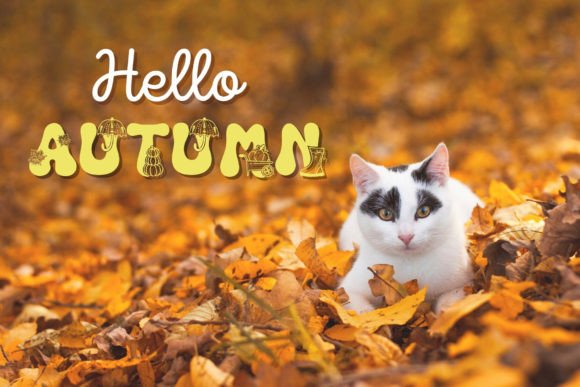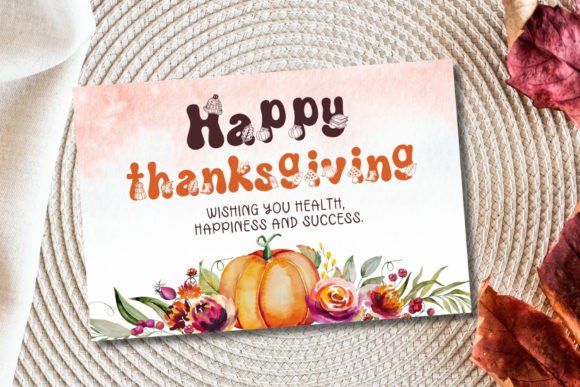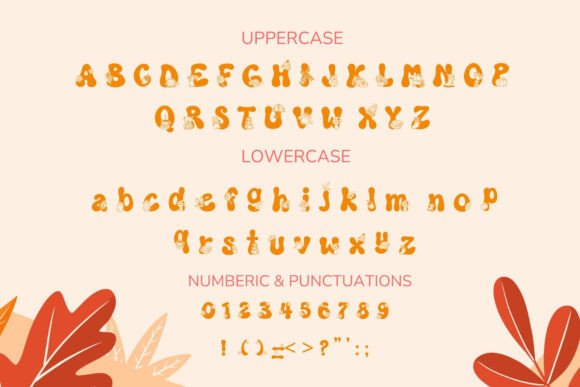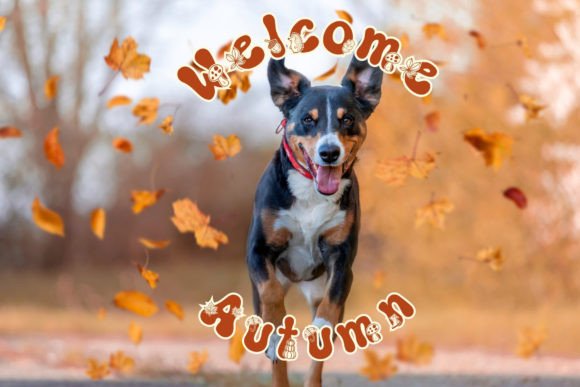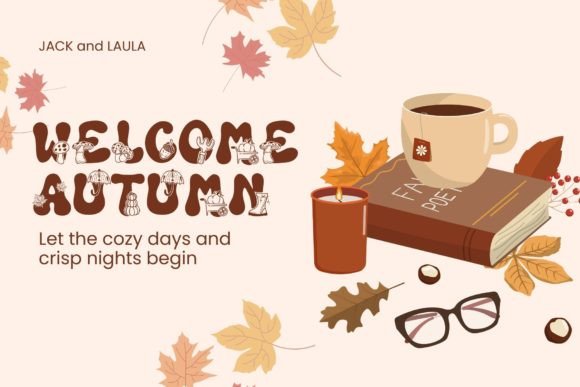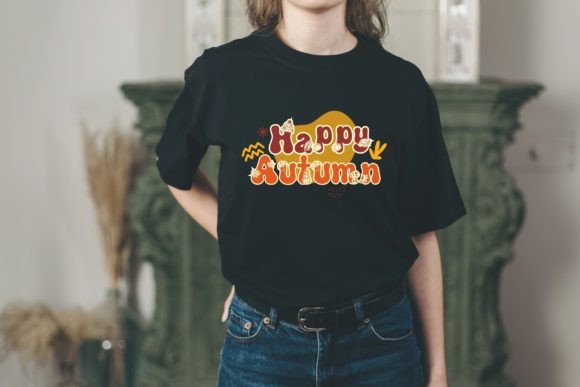
Embracing the Cozy Feel of Autumn in Typography
As the leaves start to change colors and the air grows crisp, many creatives find inspiration in the warmth and coziness of the autumn season. For designers, this can be the perfect moment to infuse their work with a sense of seasonal charm. And what better way to do that than with a font that embodies the essence of fall?
Meet Autumn Font, a bold display font that brings the beauty of autumn right into your words. Designed with little fall items like leaves, pumpkins, and acorns, this font is perfect for creating seasonal posters, invitations, or decorations. Whether you’re a graphic designer, a crafter, or simply a fan of all things autumn, Autumn Font is a valuable addition to your toolkit.
Autumn Font Key Features
- Font Family: Autumn Font is a sans-serif font family.
- Unique Characteristics: The font features a unique blend of modern and organic elements, with subtle rounded edges and a natural feel.
Autumn Font Review
When I first laid eyes on Autumn Font, I was immediately drawn in by its unique blend of elegance and whimsy ✨. The font’s organic feel, reminiscent of hand-drawn letters, adds a touch of personality to any project it’s used in. The subtle texture and varying line widths create a sense of depth and visual interest that’s hard to find in more generic fonts.
The Autumn Font family is quite comprehensive, with a range of weights and styles to suit different design needs. From the delicate, cursive scripts to the bold, sans-serif options, there’s something to suit every style ✨. I particularly appreciate the font’s versatility, as it can be used for everything from invitations and posters to digital interfaces and editorial content.
- ⚠️ Limited language support: Autumn Font may not be suitable for projects that require a wide range of languages, as it’s primarily designed for English and other Latin-based scripts.
- ⚠️ Not ideal for small text: Due to its organic design, Autumn Font can become difficult to read at small sizes. It’s best used for headings and titles, rather than body text.
Overall, I’m thoroughly impressed with Autumn Font. Its unique design and versatility make it a standout choice for designers looking to add a touch of personality to their projects. While it may have some limitations, I believe the benefits far outweigh the drawbacks.
Getting the Most Out of Autumn Font
Here are some tips to help you get the most out of Autumn Font:
- Use Autumn Font in combination with other autumn-themed elements, such as leaves or pumpkins.
- Consider using Autumn Font for titles, headings, or body text.
Autumn Font is perfect for:
- Seasonal marketing materials, such as flyers or posters.
- Wedding invitations or decorations.
- Blog posts or articles about autumn or fall-related topics.
Alternatives to Autumn Font
Playfair Display is a luxurious and elegant script font, ideal for use in high-end branding, invitations, and luxury packaging. It features intricate flourishes and elegant letterforms, making it perfect for designers who want to add a touch of sophistication to their designs. Compared to Autumn Font, Playfair Display is more formal and luxurious, while Autumn Font is more rustic and natural.
Great Vibes is a modern and elegant script font, suitable for use in various design projects, including branding, advertising, and editorial design. It features a unique blend of modern and vintage elements, making it perfect for designers who want to add a touch of personality to their designs. Compared to Autumn Font, Great Vibes is more modern and trendy, while Autumn Font is more traditional and rustic.
Pacifico is a beautiful and elegant script font, inspired by the Pacific Coast Highway. It features a relaxed and casual feel, making it perfect for use in design projects that require a laid-back and beachy vibe. Compared to Autumn Font, Pacifico is more relaxed and casual, while Autumn Font is more rustic and natural.